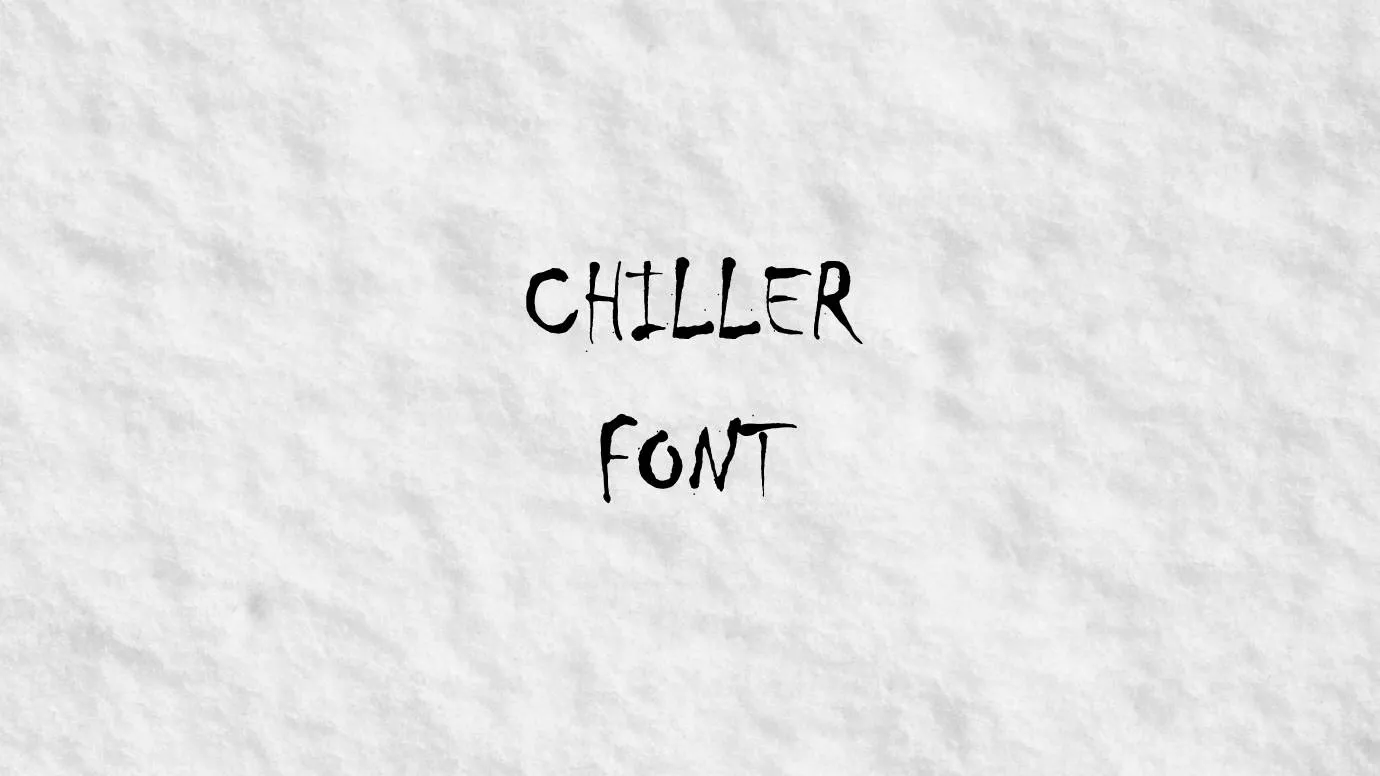
Chiller Font Family is a classic TrueType typeface that came into being by Andrew Smith, a British designer who is known for his classic work in the field of designing. The font was designed by keeping in mind all the tiny details in order to make it a legible typeface.
On small screens, this typeface gives an inspiring appearance and makes the small-size texts readable and understandable when this is paired with the watch font.
Chiller Font
NameChiller Font
Designer Andrew Smith
FoundryITC Linotype
Date Released1995